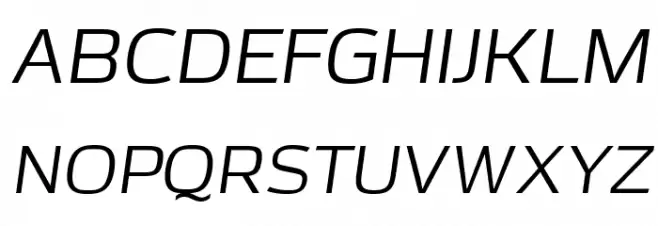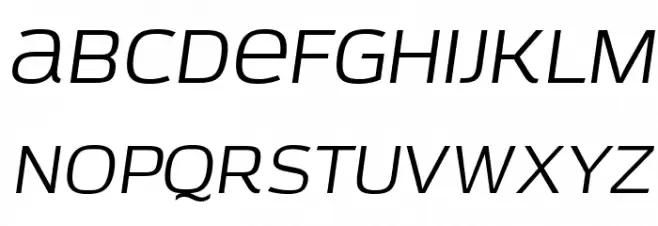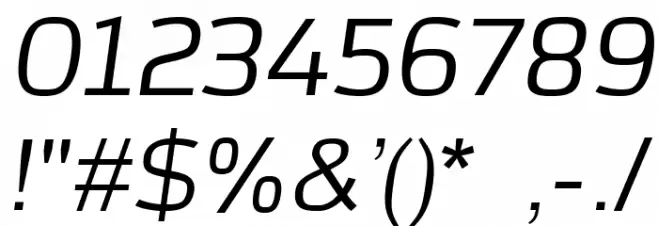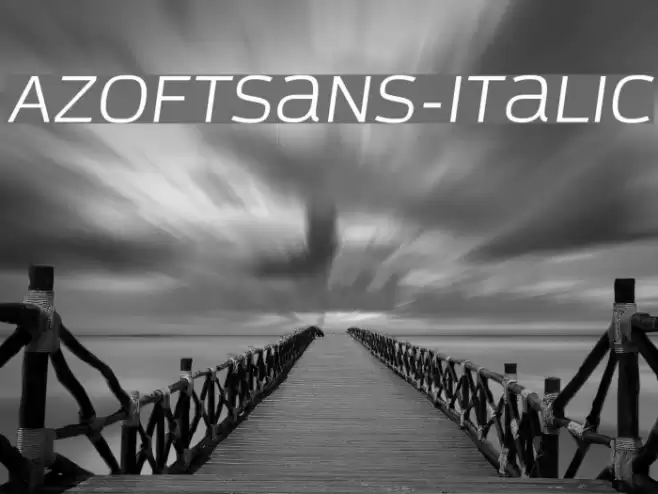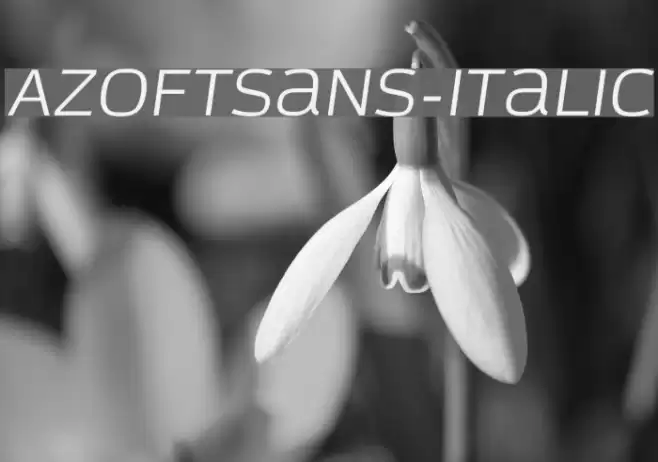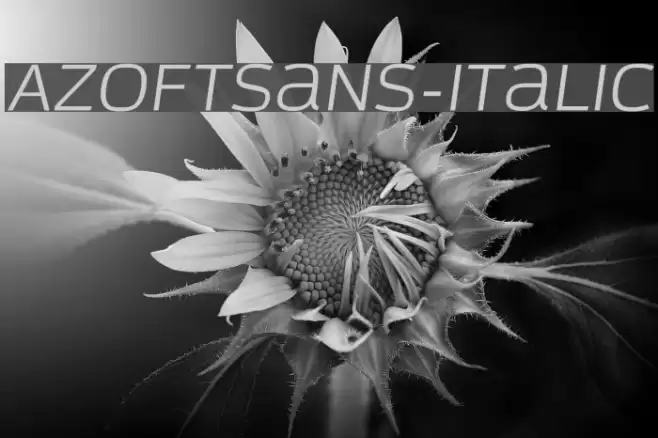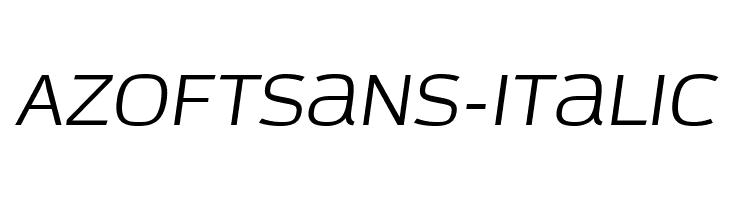
AzoftSans-Italic
This font presents a sleek and modern aesthetic with its italicized form, offering a dynamic and forward-leaning appearance. The characters are cleanly designed with a consistent stroke width, providing a uniform look across all letters and numbers. The uppercase and lowercase letters maintain a harmonious balance, while the numerals are clear and easily distinguishable. Special characters are crafted with precision, enhancing the font's versatility. The overall design is minimalistic yet impactful, making it suitable for a variety of applications.
A modern, italicized font with a sleek and uniform design.
- Proposed Projects: Ideal for branding, advertising, and editorial design where a contemporary and professional look is desired.